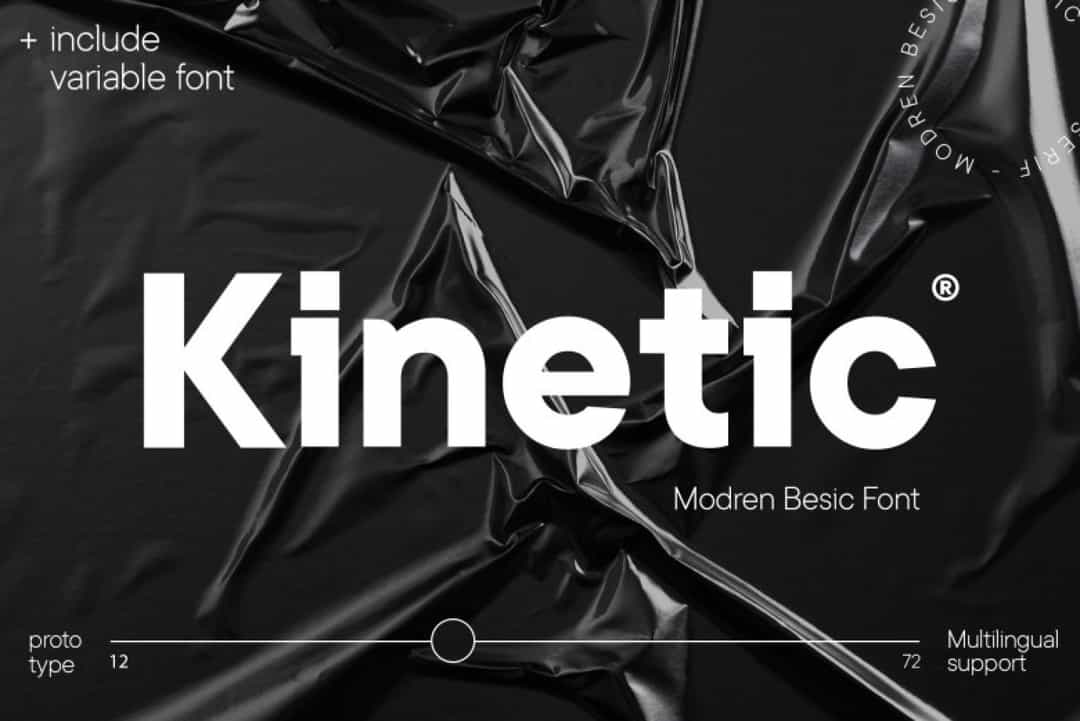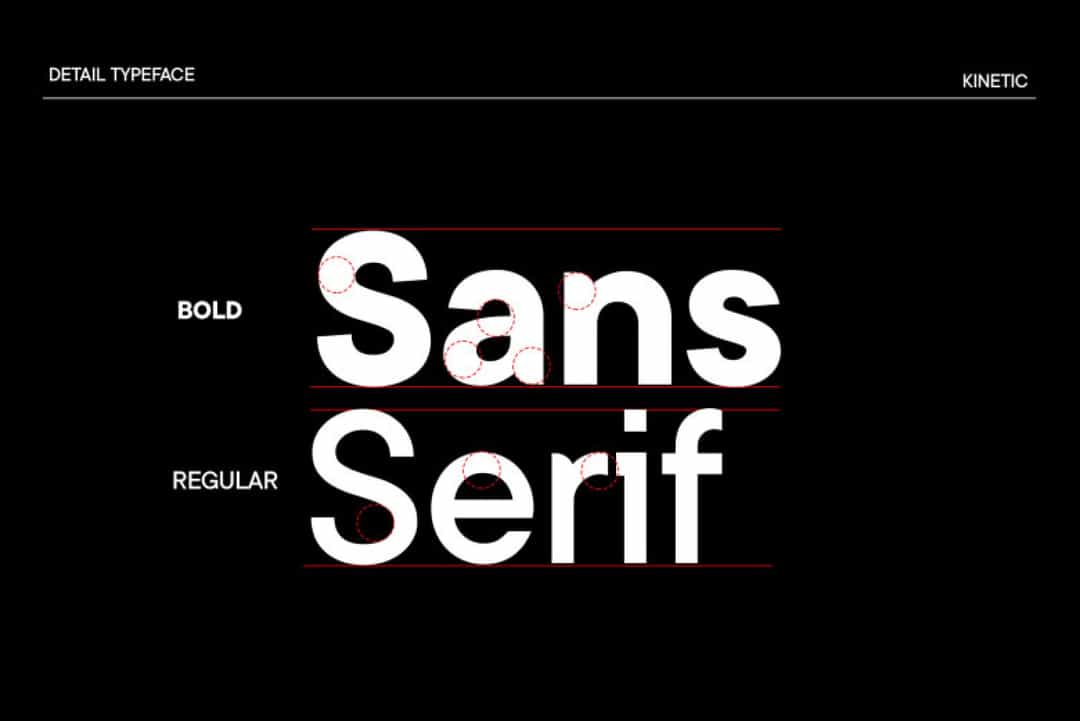
Discover Kinetic Font, part of the Sans Serif collection—a versatile and unique font perfect for adding a personal touch to your projects. Download it for free and enjoy crafting designs with style, from invitations to social media posts. This font is available exclusively for personal use, giving you the freedom to create without limits. Unlock your creativity with Kinetic Font today!
Kinetic is a sleek and modern font family. Perfectly at home among an assortment of designs, Kintic will stand out! Explore its potential today in your creative efforts and witness its effect!